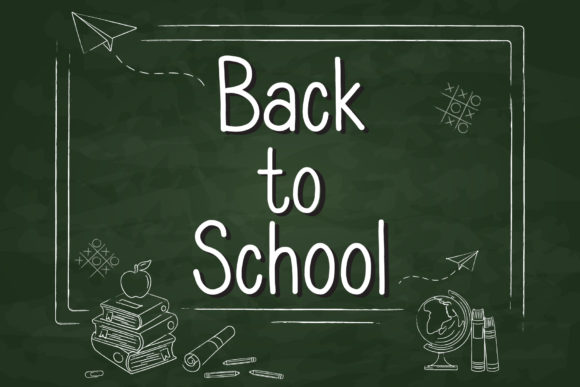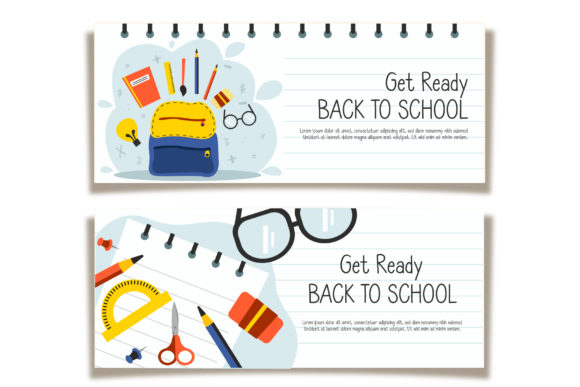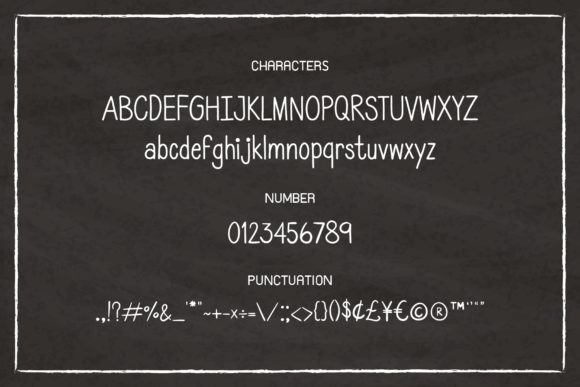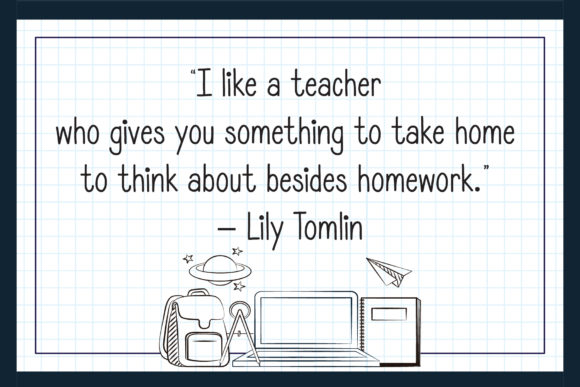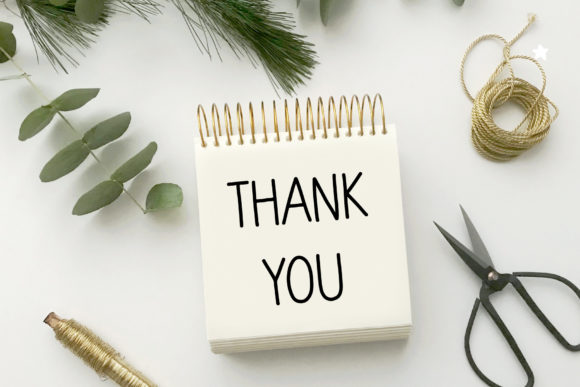
Back to School Font
About Back to School Font
Back to School is a simple and friendly handwritten font. Use it to brighten up any kid’s and school’s projects!